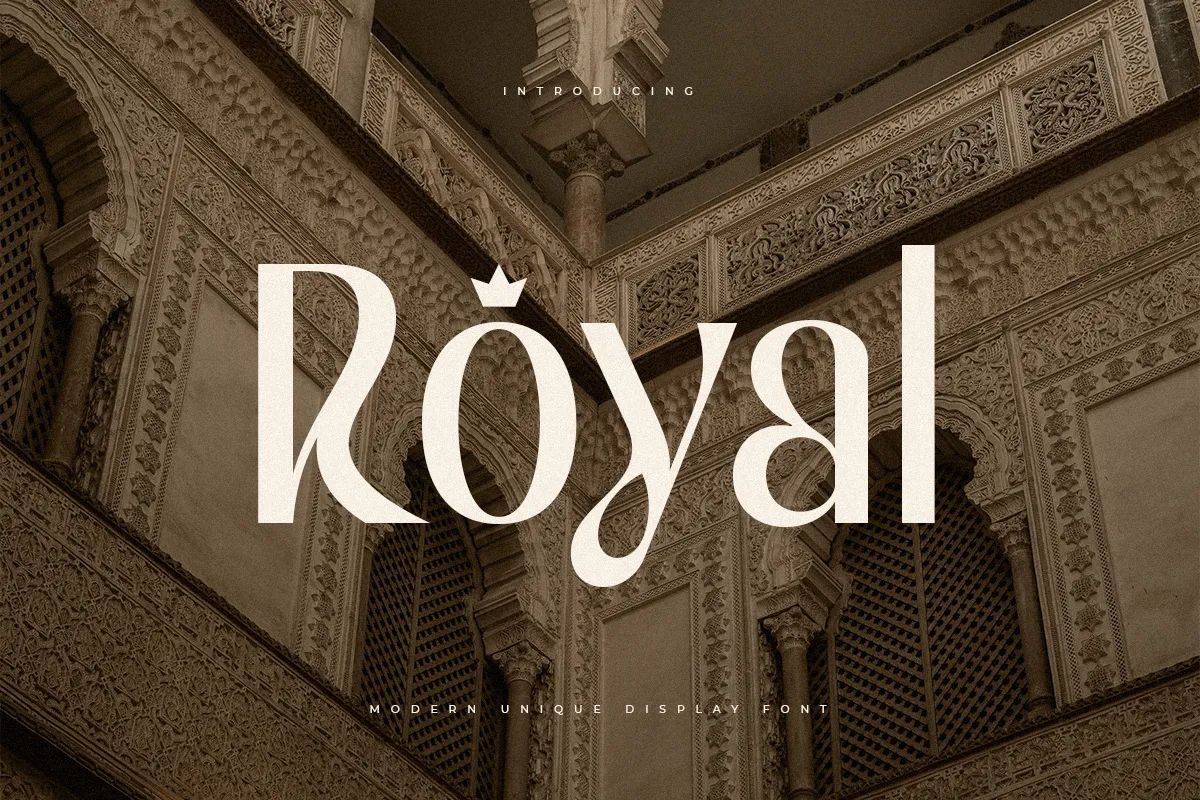
Royal Modern Unique Display Font is a Cutting edge Novel Displays Serif text style for marking and logo plan.
Presenting our lovely text style, carefully created for marking and logo plan. Created by our group of prepared visual originators, this text style epitomizes the ideal combination of uniqueness and tastefulness.
Drawing upon our broad experience working with various organizations, we comprehend the consistent interest for unmistakable logo plans that radiate complexity. To address this issue, we set out on an imaginative excursion, taking part in meetings to generate new ideas to consider a text style that would rejuvenate these thoughts.